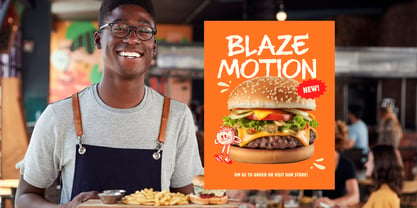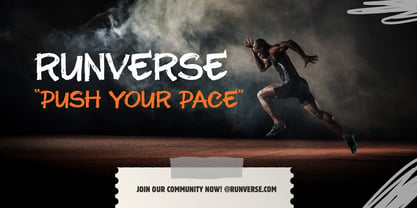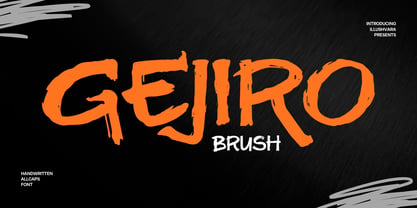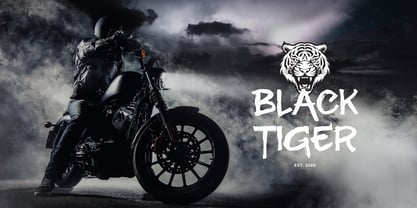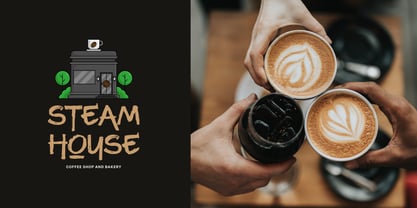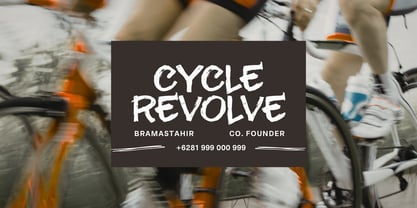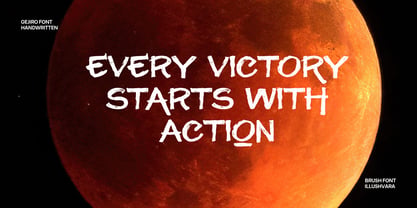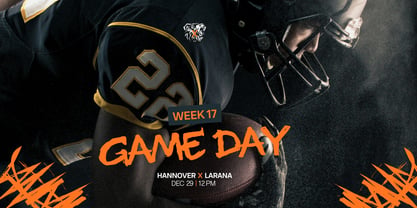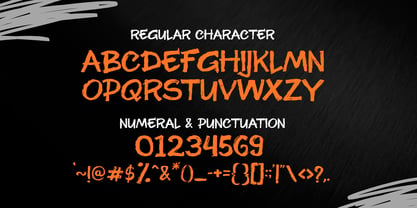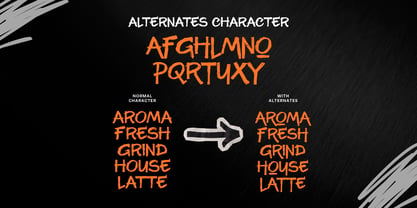
Gejiro Brush
by Illushvara
The Gejiro Brush Font Family was designed by Bayu Suwirya and published by Illushvara. Gejiro Brush contains 1 styles. More about this family
Gejiro Brush is a bold all-caps brush font featuring stylish alternate characters, perfect for creating standout logos and eye-catching designs. Its energetic strokes make it ideal for sports branding, running events, football clubs, food packaging, coffee shops, posters, motorcycle, racing and modern branding projects. Add a handcrafted, powerful look to every creative design with Gejiro Brush.
Designers: Bayu Suwirya
Foundry: Illushvara